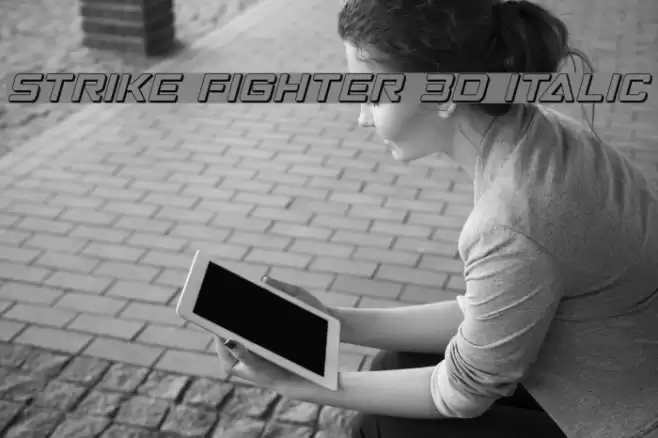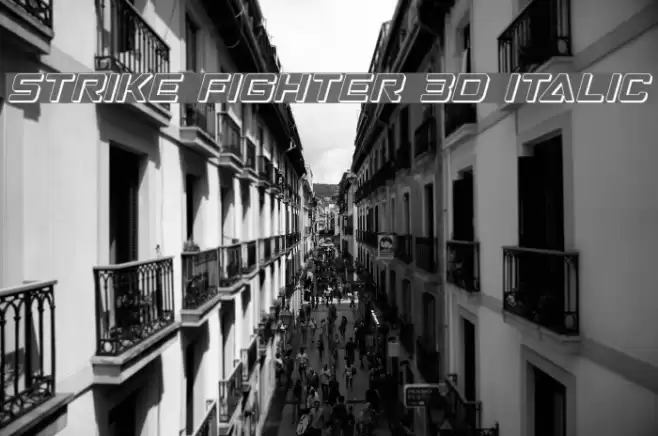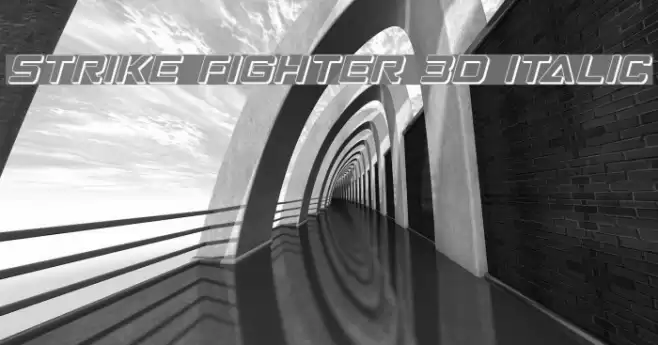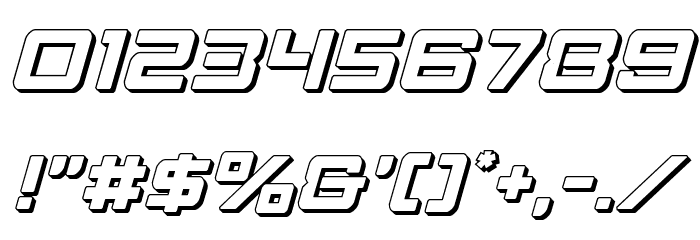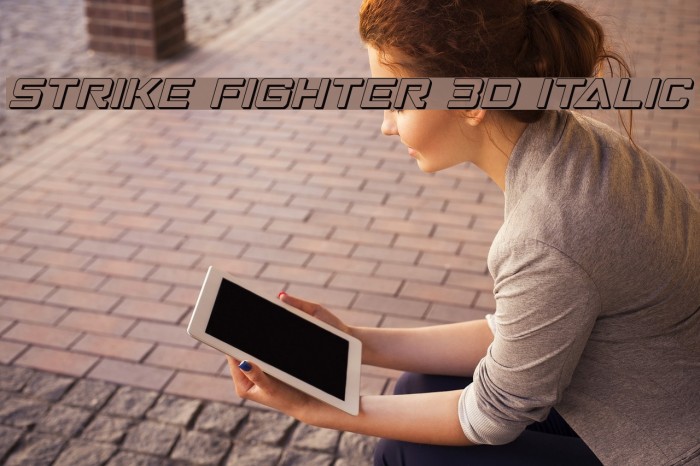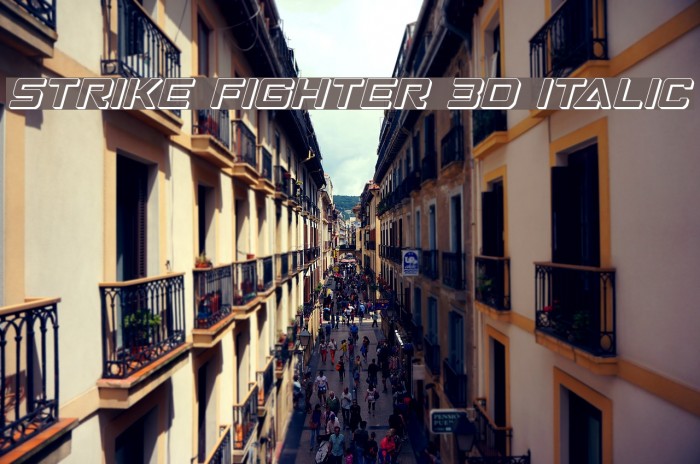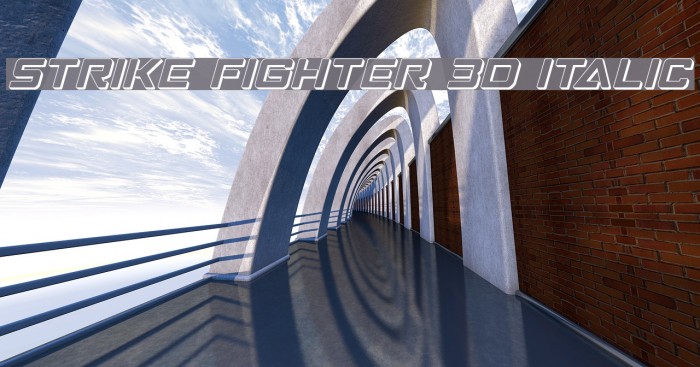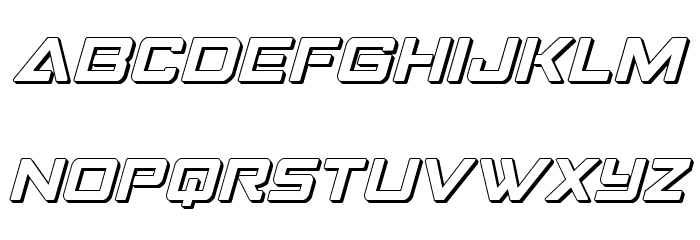
Strike Fighter 3D Italic Font
Strike Fighter 3D Italic Description
This font features a bold, futuristic design with a 3D effect that gives it a dynamic and striking appearance. The characters are italicized, adding a sense of motion and speed. Each letter is outlined, creating a layered look that enhances the depth and dimensionality. The font maintains a consistent width and spacing, ensuring readability while emphasizing its modern aesthetic. The angular and geometric shapes of the letters contribute to its tech-inspired style, making it ideal for projects that require a contemporary and edgy look.
A bold, italicized 3D font with a futuristic and dynamic design from Sci-fi fonts.
- Proposed Projects: Ideal for video game titles, tech branding, sci-fi movie posters, and sports team logos.